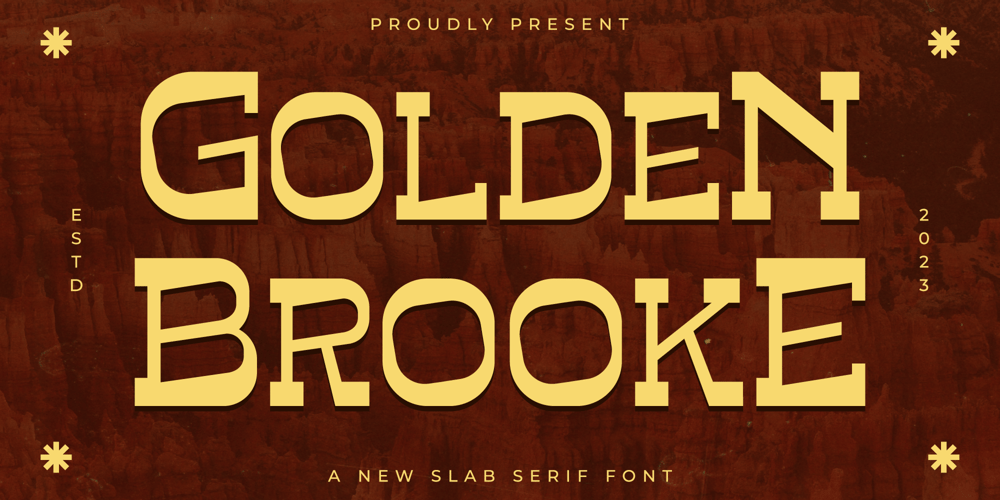
Golden Brooke Font Family was designed by Heru Utama Putra and published by Letterena Studios. Golden Brooke contains 2 styles and family package options. Golden Brooke is a rugid slad serif font inspired by the wild west. This typeface is perfect for an elegant & luxury logo, book or movie title design, fashion brand, magazine, clothes, lettering, quotes, and so much more.